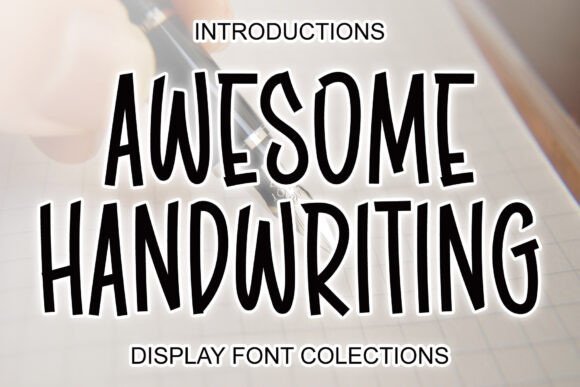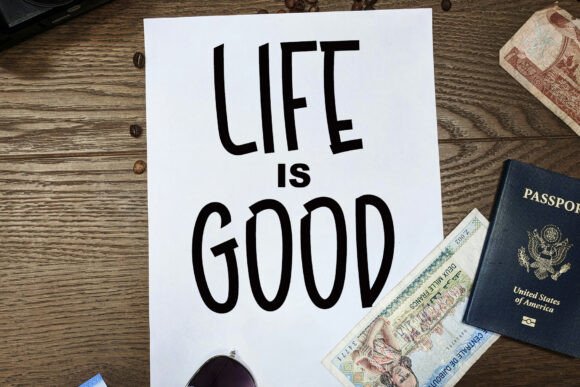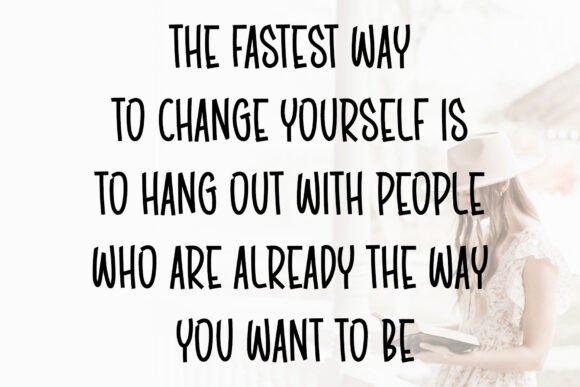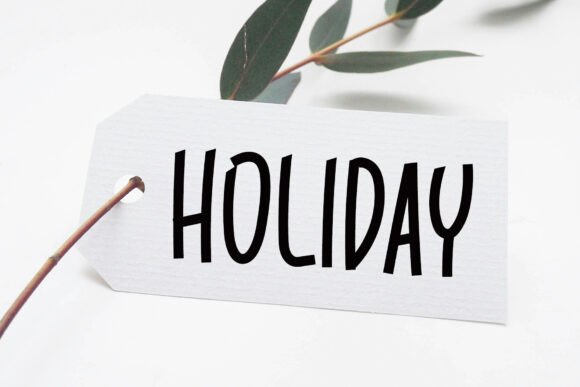
Awesome Handwriting Font
About the Awesome Handwriting Font
Let us introduce you to Awesome Handwriting Font, where timeless design meets modern craftsmanship. Awesome Handwriting is a fun and quirky font perfect for use on cheerful topics. Very suitable for children’s themed designs, especially when combined with bright colors.
Its playful, informal style makes it ideal for projects targeting a young audience, such as children’s books, branding for toys or confectionery, and playful social media graphics. It works well in headlines, short text blocks, and even packaging where a hand-drawn feel adds personality. However, avoid using it for body text or lengthy content; its whimsical nature can become overwhelming and difficult to read in large quantities.
Awesome Handwriting Font pairs well with clean sans-serif fonts like Open Sans or Lato for a balanced contrast. For a more sophisticated look, consider pairing it with a classic serif like Garamond or a slightly more modern serif like Merriweather. Avoid pairing it with other highly decorative or script fonts, as this can create visual clutter.
The overall personality is undeniably friendly and approachable, conveying a sense of childlike wonder and handmade charm. This makes it unsuitable for projects requiring a formal or serious tone.
Awesome Handwriting Font Example